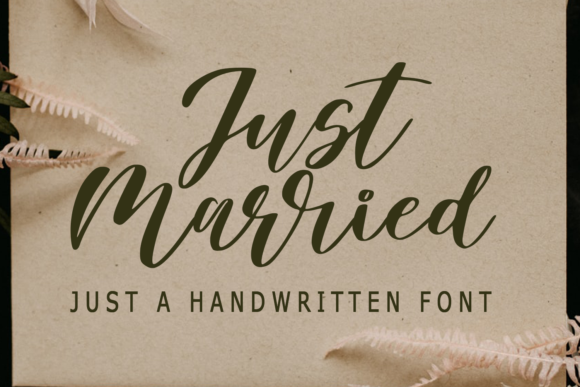
Welcome to the world of Just Married, a script font family that will ignite your creativity and make your designs shine with charm and elegance. Its modern calligraphy style, inspired by the beauty of handwritten letters, will captivate your audience and leave a lasting impression.
Immerse yourself in the romantic allure of Just Married. Its graceful curves and delicate strokes evoke a sense of joy and celebration, perfect for wedding invitations, save-the-date cards, and other heartfelt creations. Whether you're designing posters, logos, or social media graphics, this font will infuse your work with a touch of timeless romance.
Just Married is a versatile performer that effortlessly adapts to a wide range of projects. Its organic flow and natural texture bring a personal touch to branding, packaging, and product labels, adding a layer of sophistication and craftsmanship. Unleash your creativity and explore new possibilities with Just Married, the font that transforms ordinary designs into extraordinary expressions.
With its PUA encoding, Just Married grants you easy access to a treasure trove of glyphs and swashes, empowering you to unleash your imagination and create designs that speak volumes. Add a touch of playfulness to your posters, a hint of whimsy to your invitations, or a dash of elegance to your branding materials. The possibilities are endless with Just Married as your creative companion.